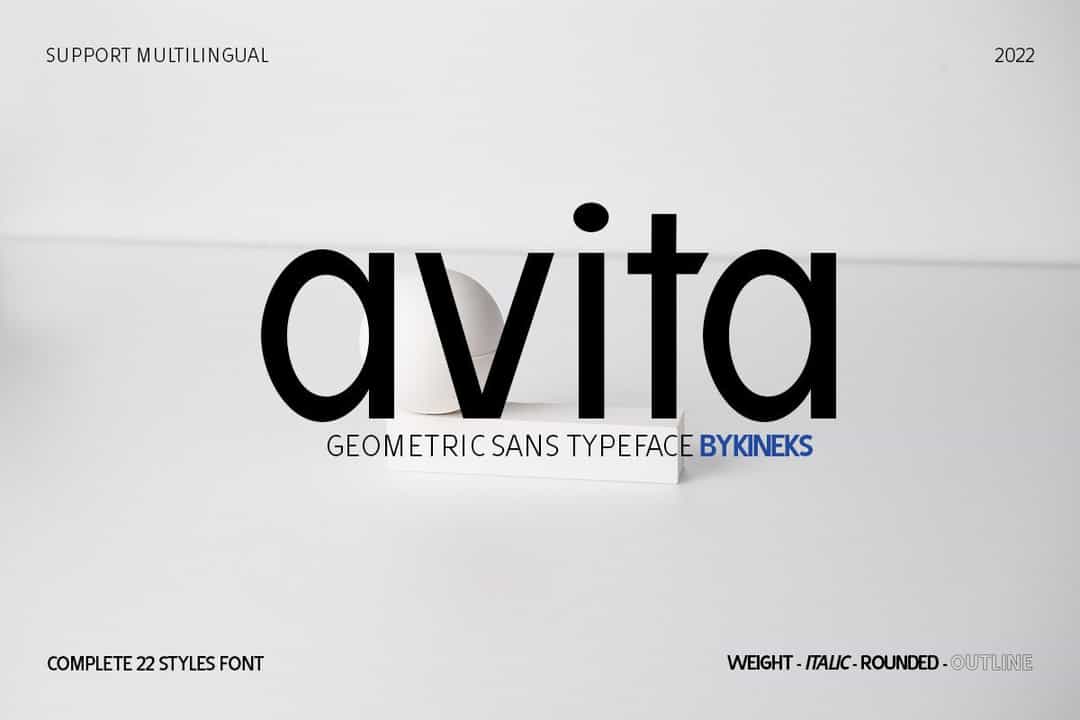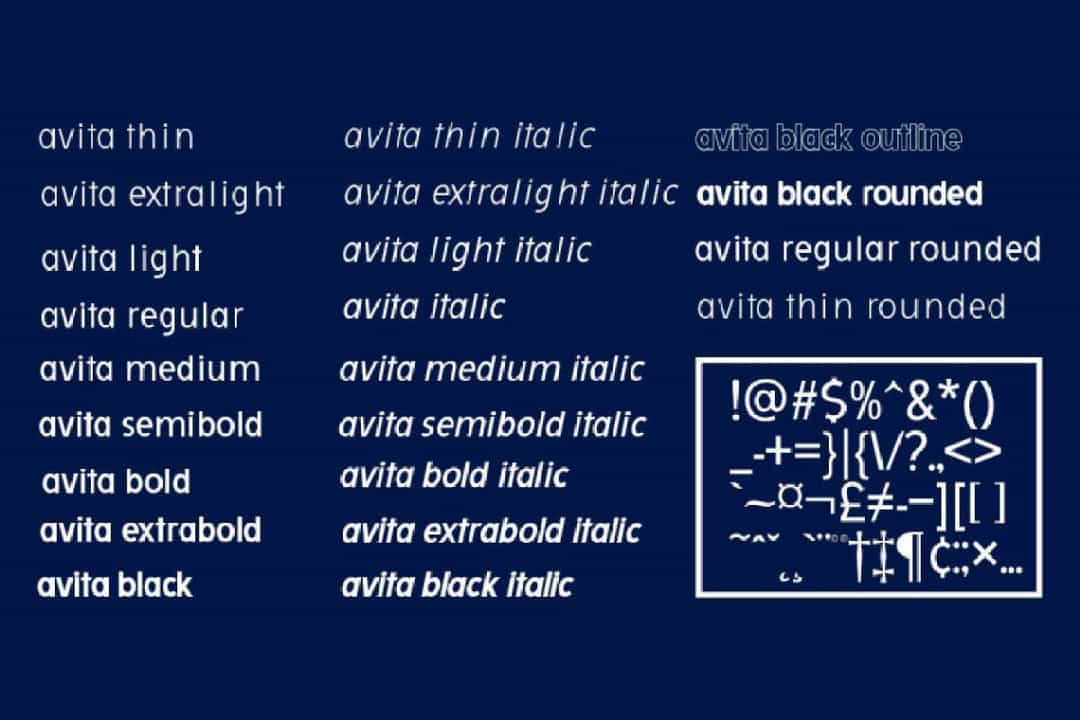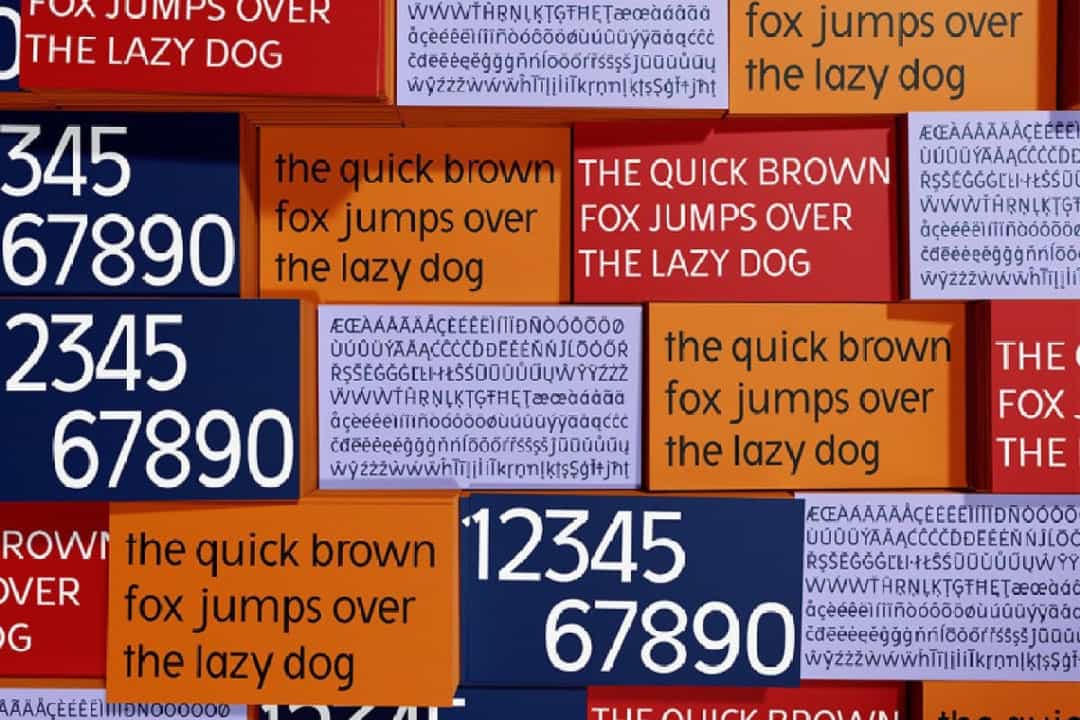
Avitais is a Geometric Sans Serif font family that was inspired by geometric shapes by adding optical illusions into its design. Form, legibility and readability are clearly apparent with an increase in height while an decrease in ascender (drawn on paper with pencil) allows this font to meet almost any design requirement with support for over 92 languages. Avitais comes in 22 styles that make use of this font family even easier.